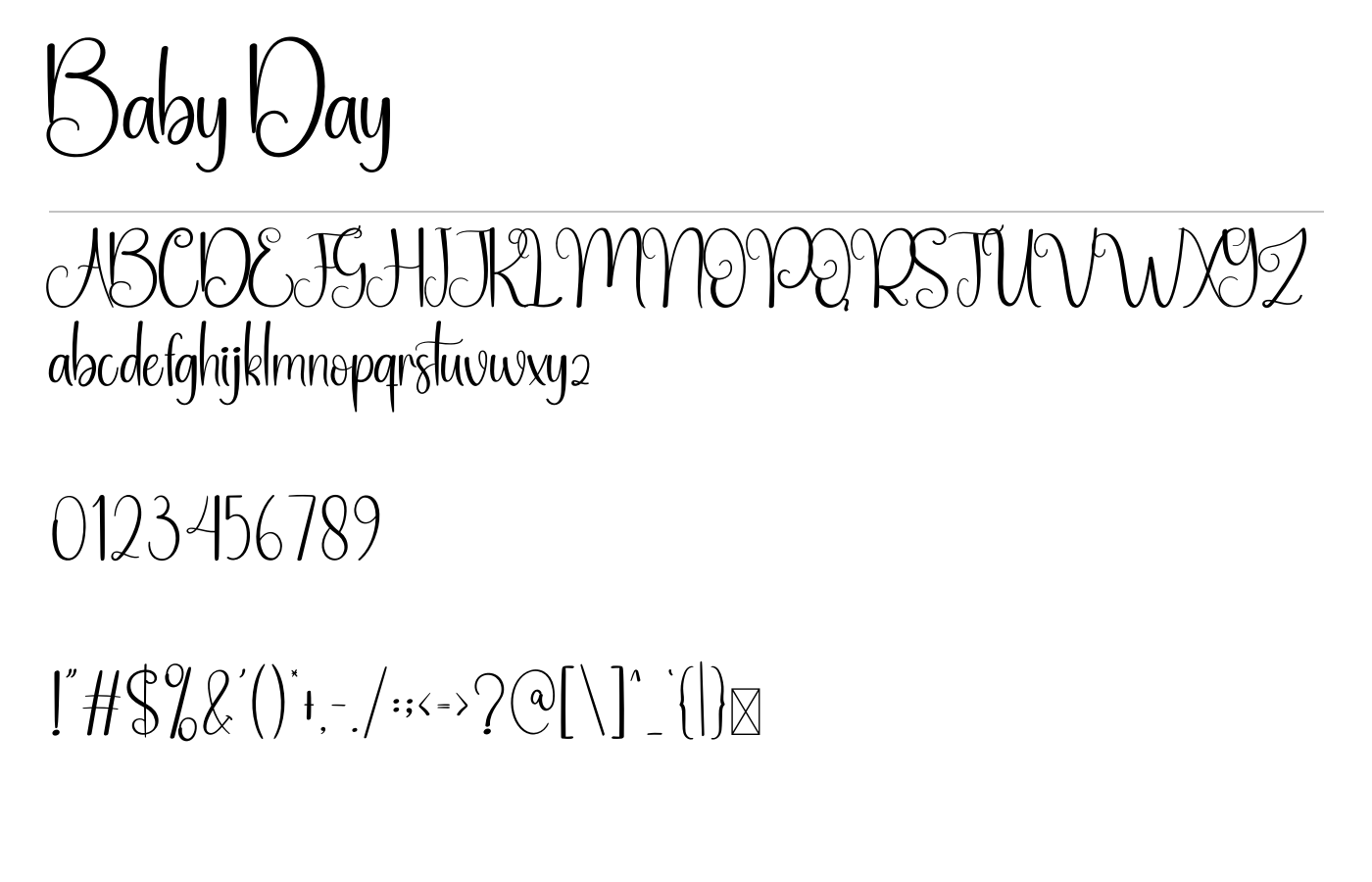
Baby Day is a playful, handwritten script font with tall, slender letterforms and delicate, curvy strokes that add a whimsical charm. Its unique uppercase letters feature decorative swirls, while the lowercase characters maintain a clean yet lively style, making it perfect for creative and fun designs like invitations, children’s products, and casual branding. This font brings an approachable, joyful personality that works well in headlines or display uses where a friendly, artistic look is desired.
Baby Day Font
About Baby Day Font